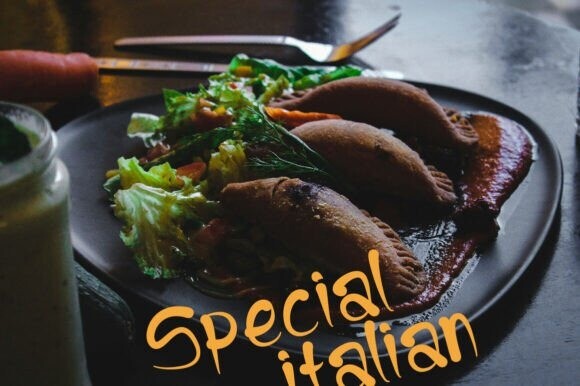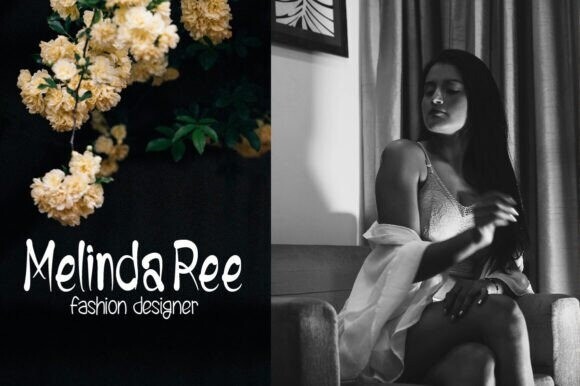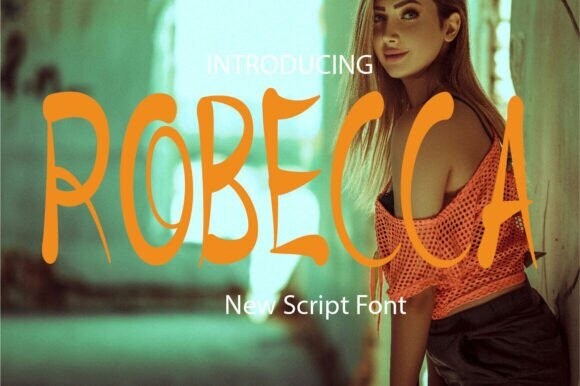
Robecca Font
Robecca Font, an innovative script font boasting unparalleled uniqueness. Immerse yourself in the intriguing personality of this character font, representing the pinnacle of design creativity and originality. This new-generation typeface is primed to inject a touch of exclusive charm into your typography arsenal. Discover Robecca, where art meets letters in a winning symphony of design aesthetics.